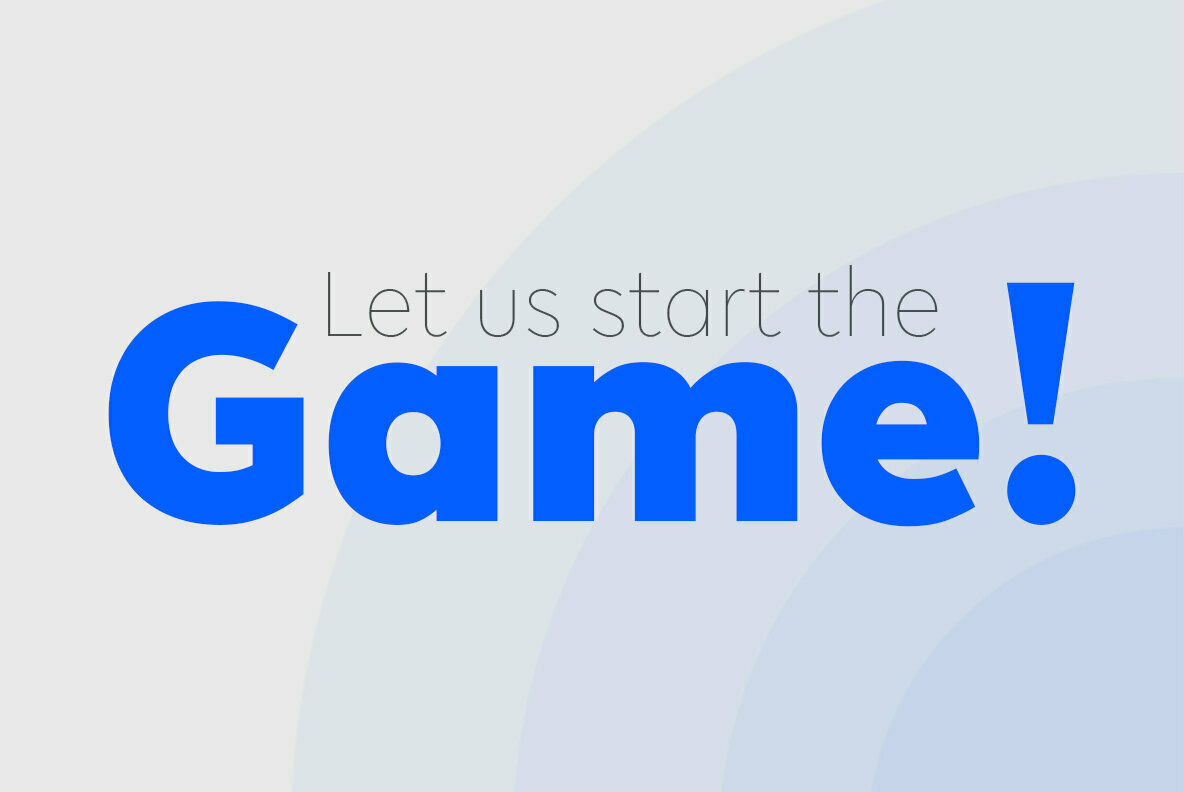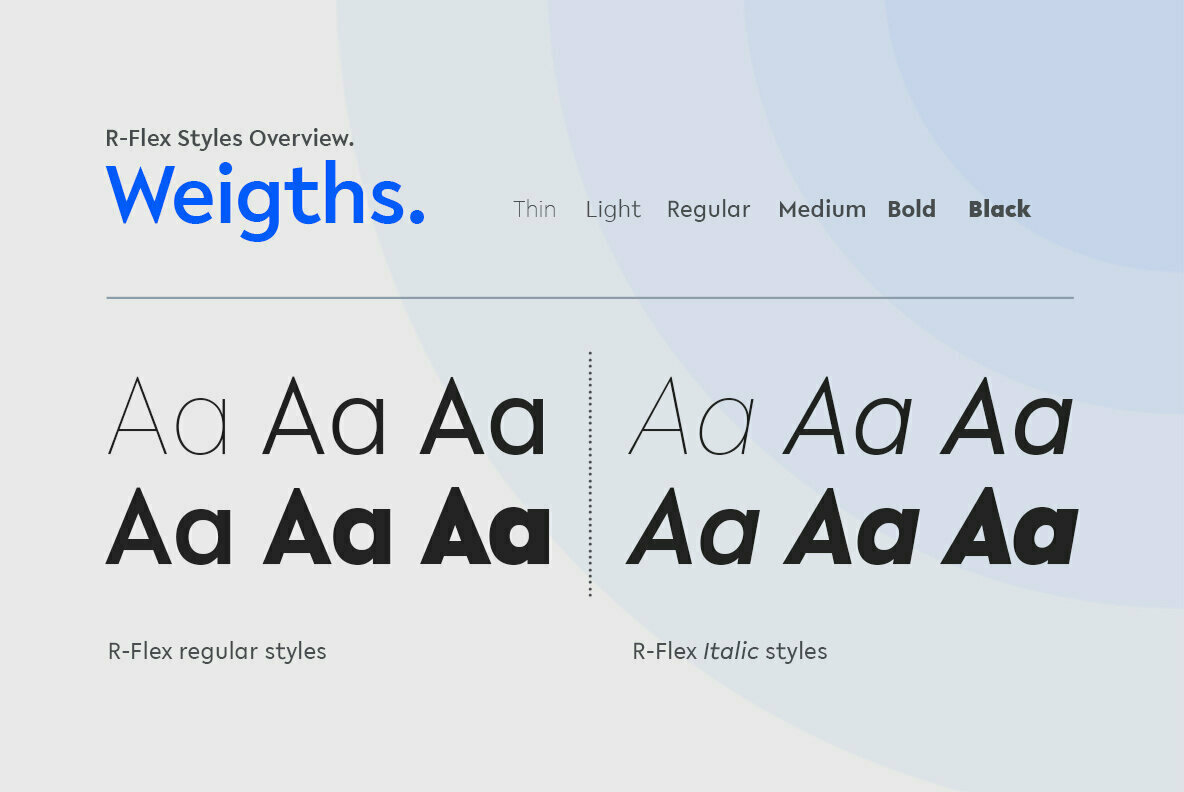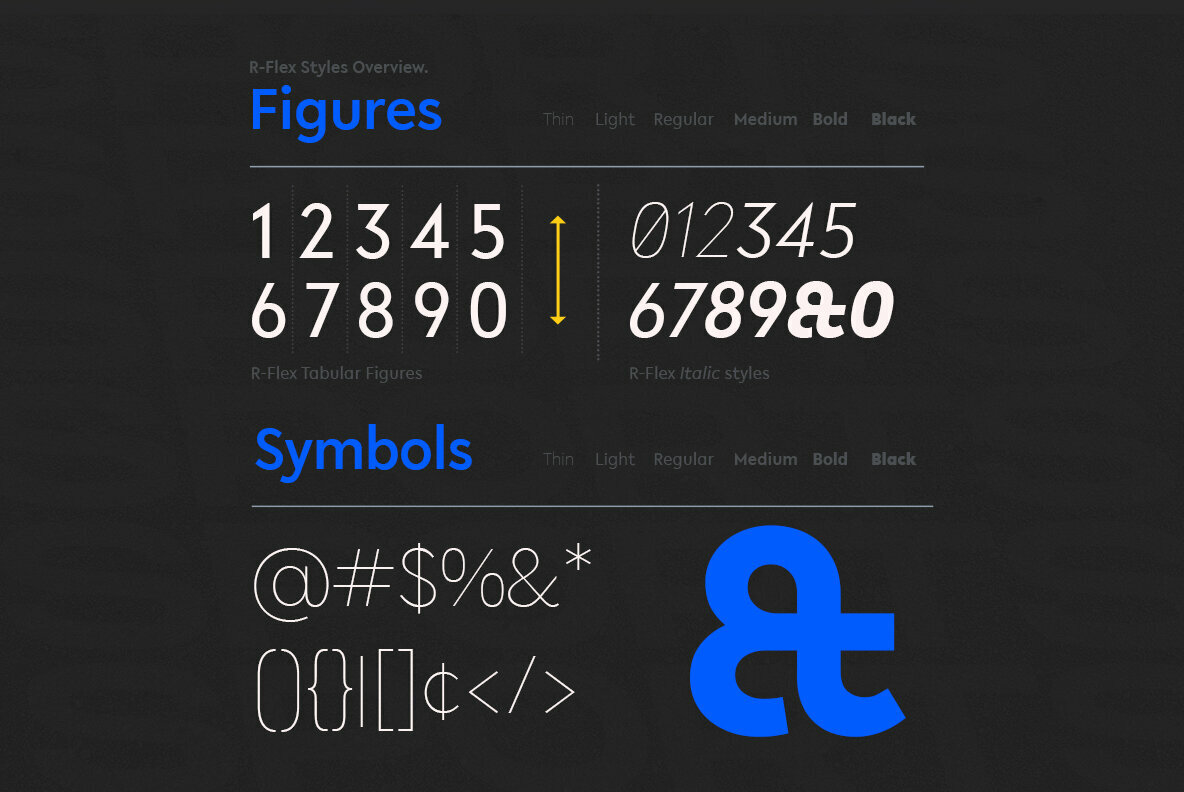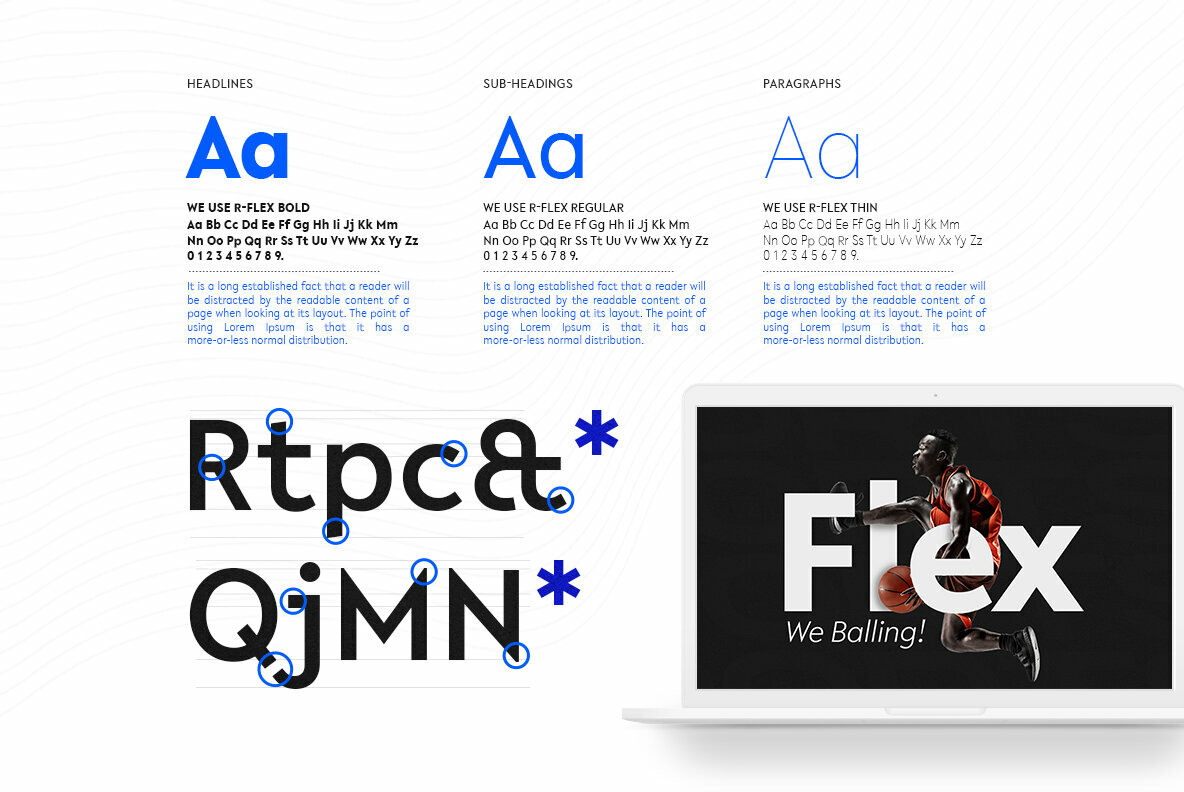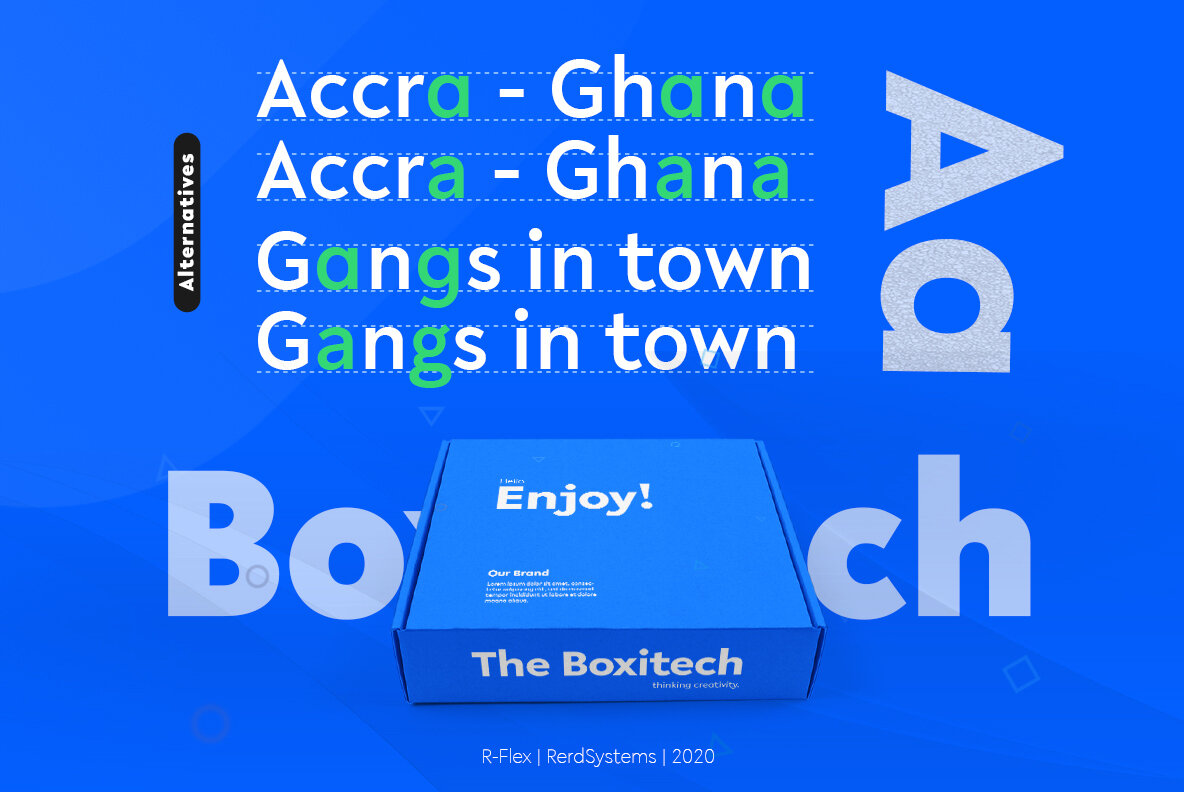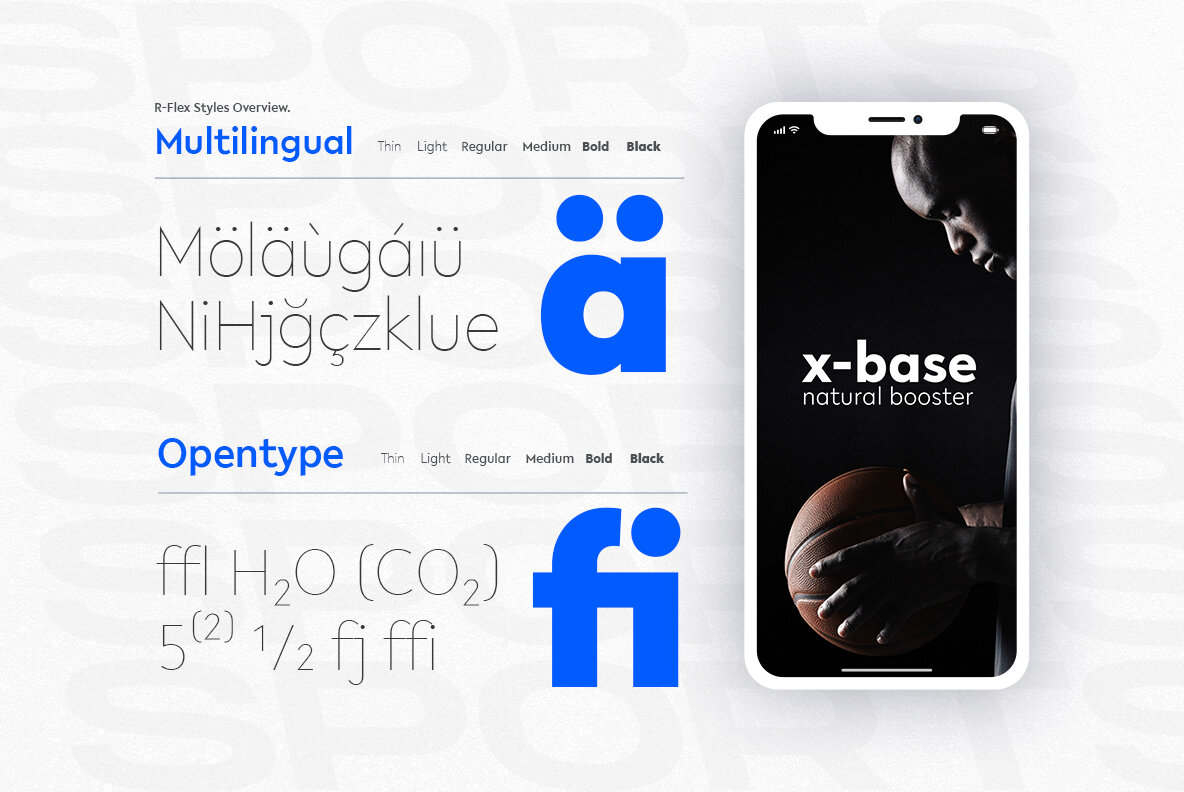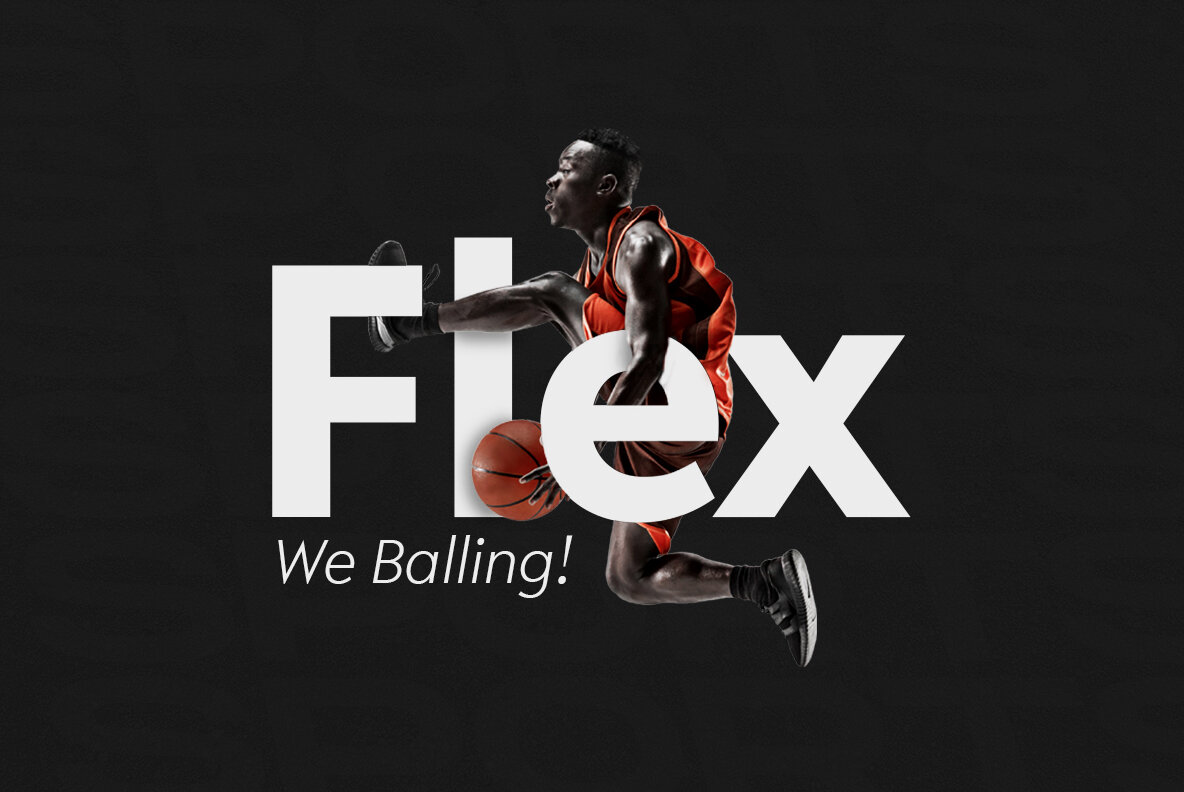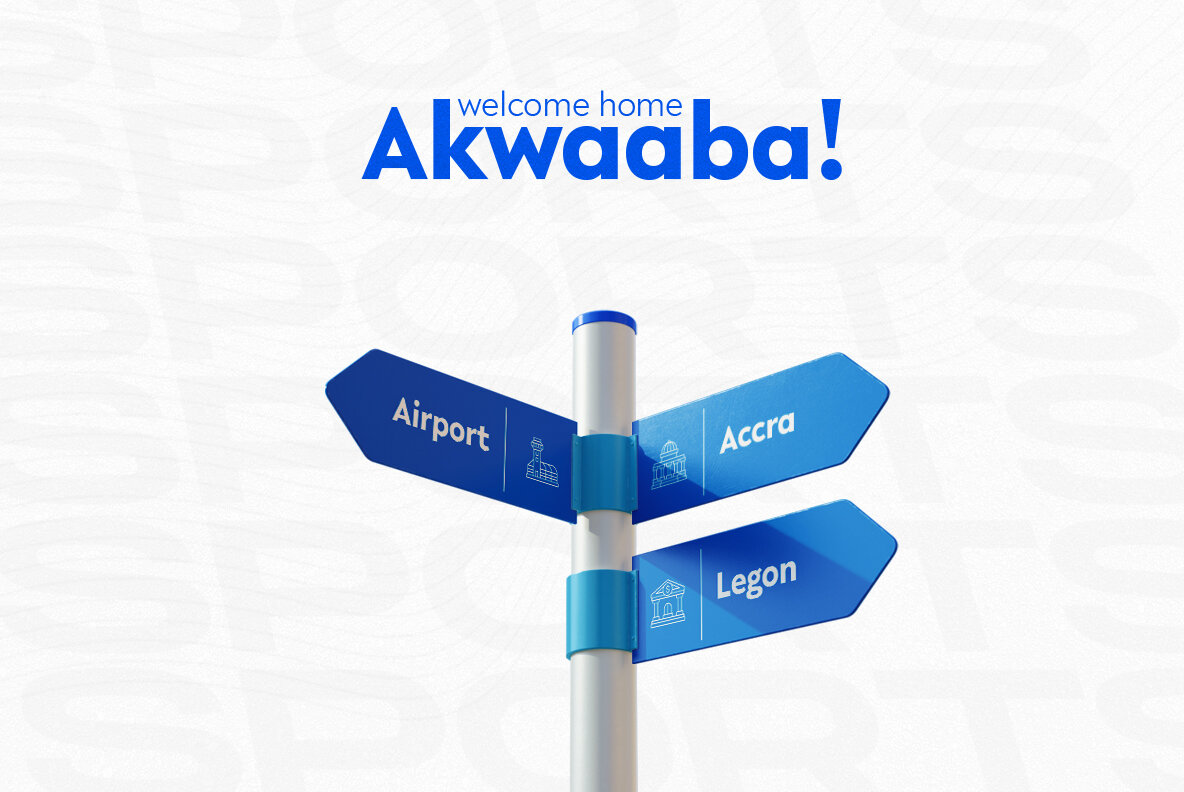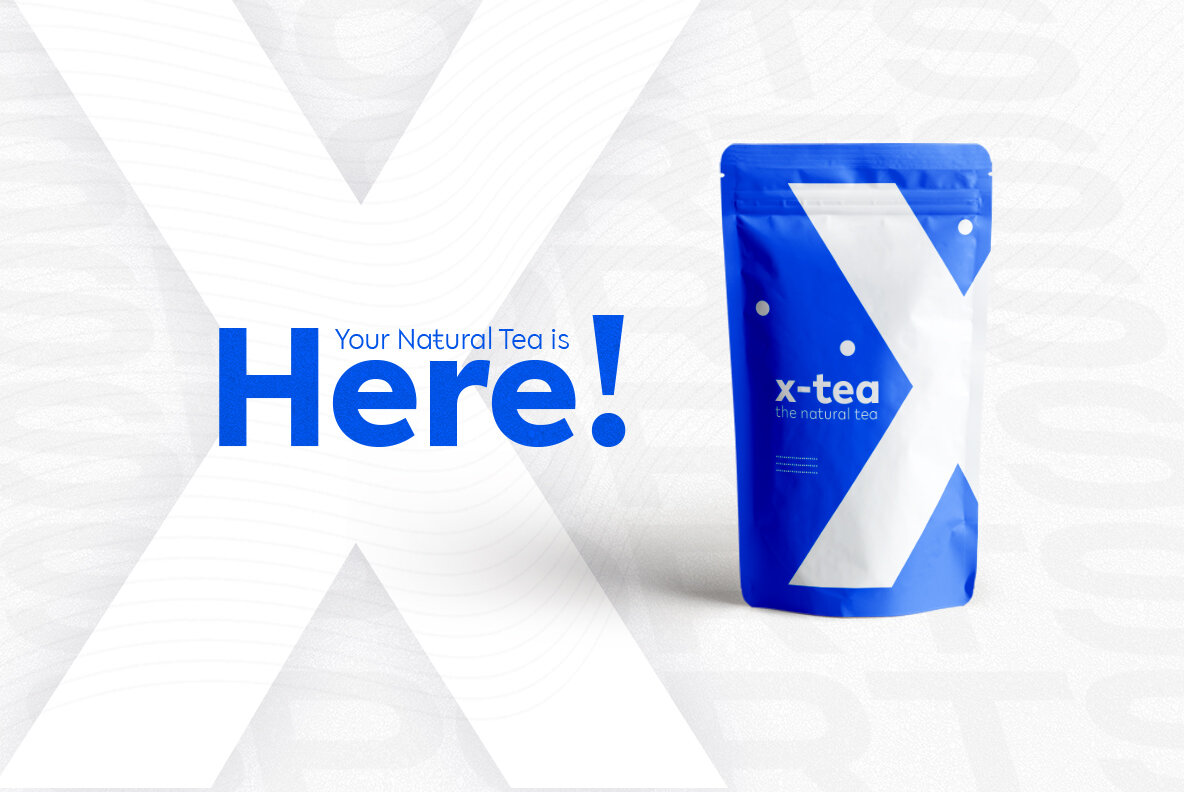
R-Flex Font
A modern sans serif font with a geometric and a bit of a grotesque touch. It comes in 12 weights, 6 straights, and matching italics. Each weight includes extended language support (+ Cyrillic), fractions, tabular figures, ligatures, and more. It has been designed with powerful OpenType features in mind. Perfectly suited for graphic design and display use. It could work seamlessly for web, signage, corporate and editorial design.